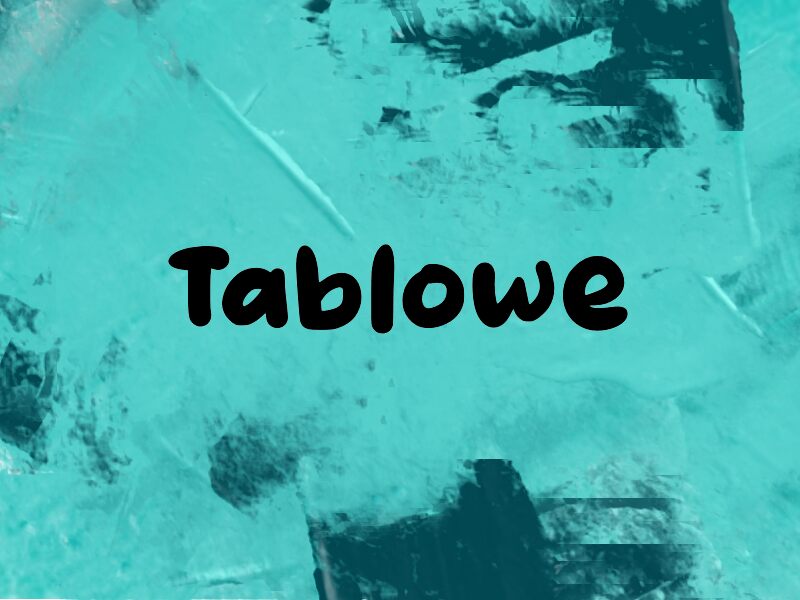
Tablowe
Tablowe font by wep is a free cartoon display typeface with a bouncy, hand-drawn charm that feels like it’s been painted with a thick, inky marker. The chunky, rounded letters sit close together, creating a friendly, hug-like rhythm that’s easy to read even at a glance. Slight wobbles and uneven curves give it that authentic doodle energy—playful without becoming messy.
Using Tablowe, you can instantly warm up kids’ book covers, birthday invitations, classroom posters, YouTube thumbnails, snack packaging, or playful app interfaces. This free font loves big sizes where its inky curves can really show, and it works beautifully when paired with a clean geometric sans for smaller supporting text.